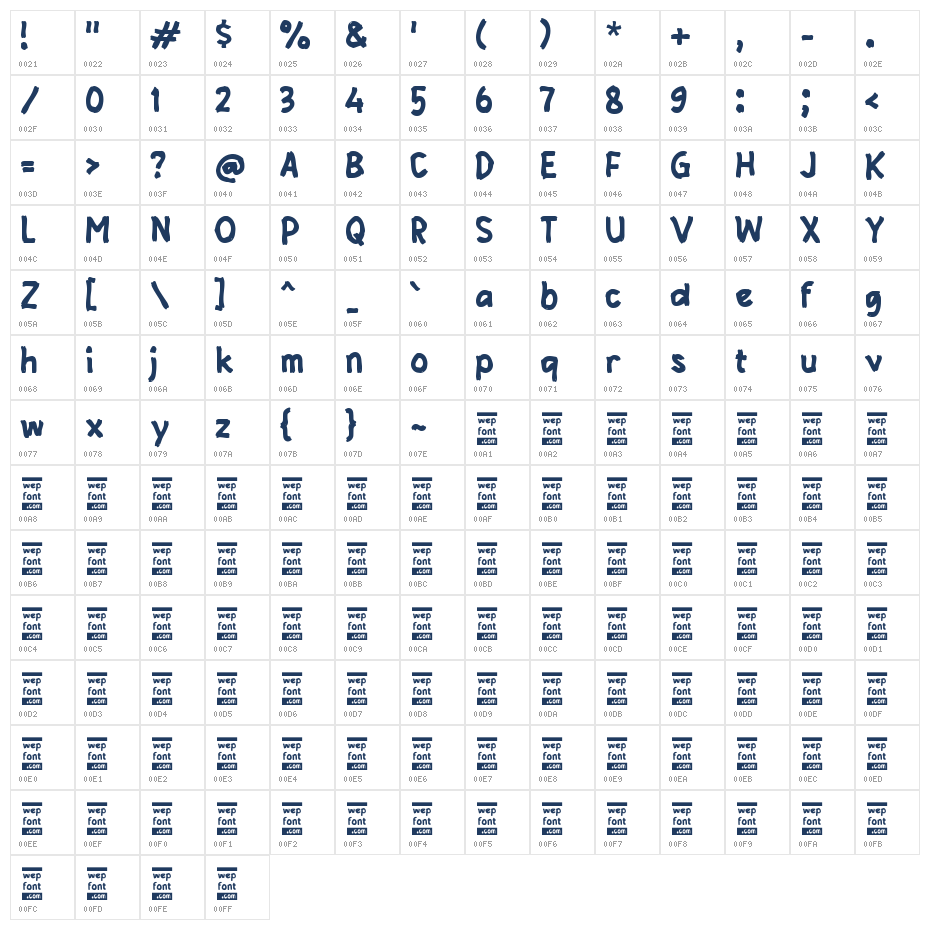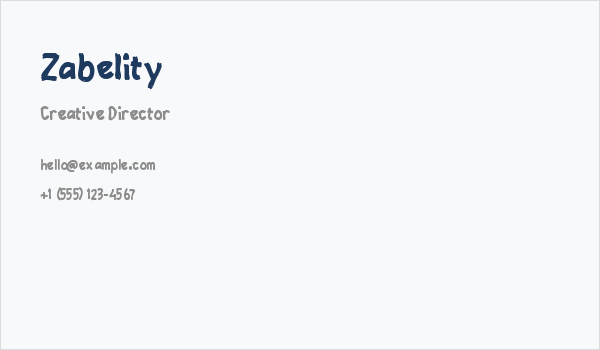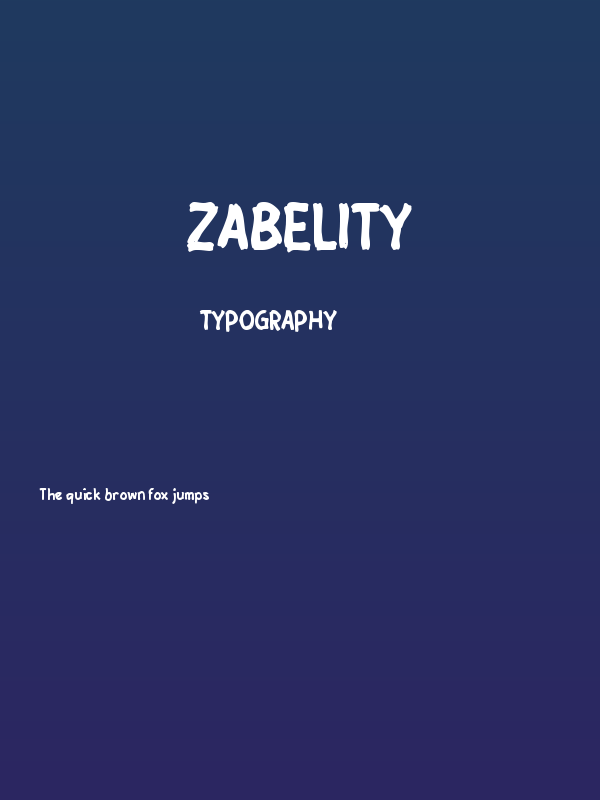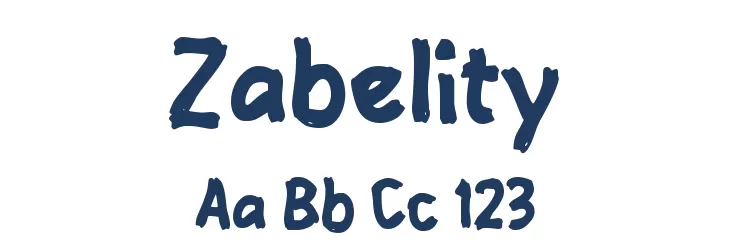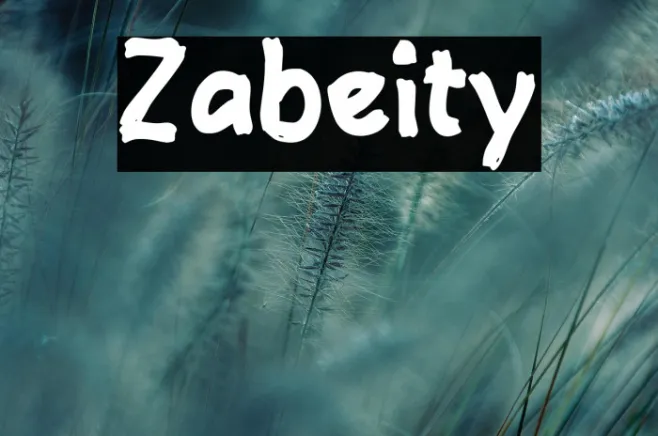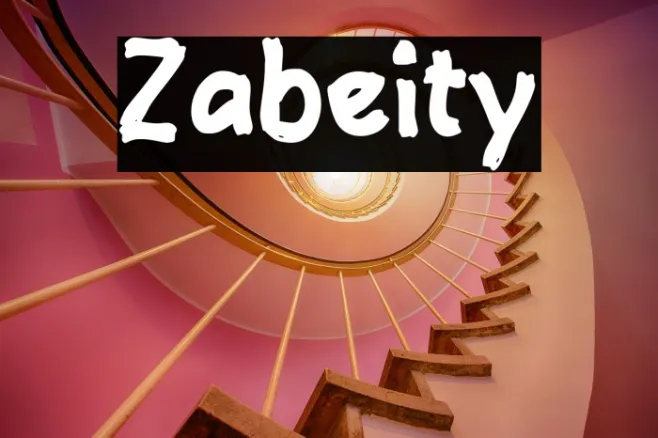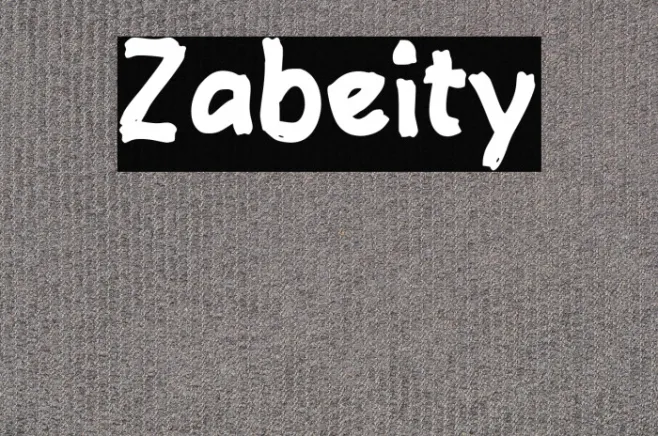
Zabelity Font
Zabelity Description
A playful, bold, handwritten style font with irregular, slightly rough edges, giving it a casual and friendly appearance.
ZABELITY UPPERCASE
ZABELITY LOWERCASE
ZABELITY OTHER CHARS
| Use Case | Headlines, Posters, Children's materials, Informal branding |